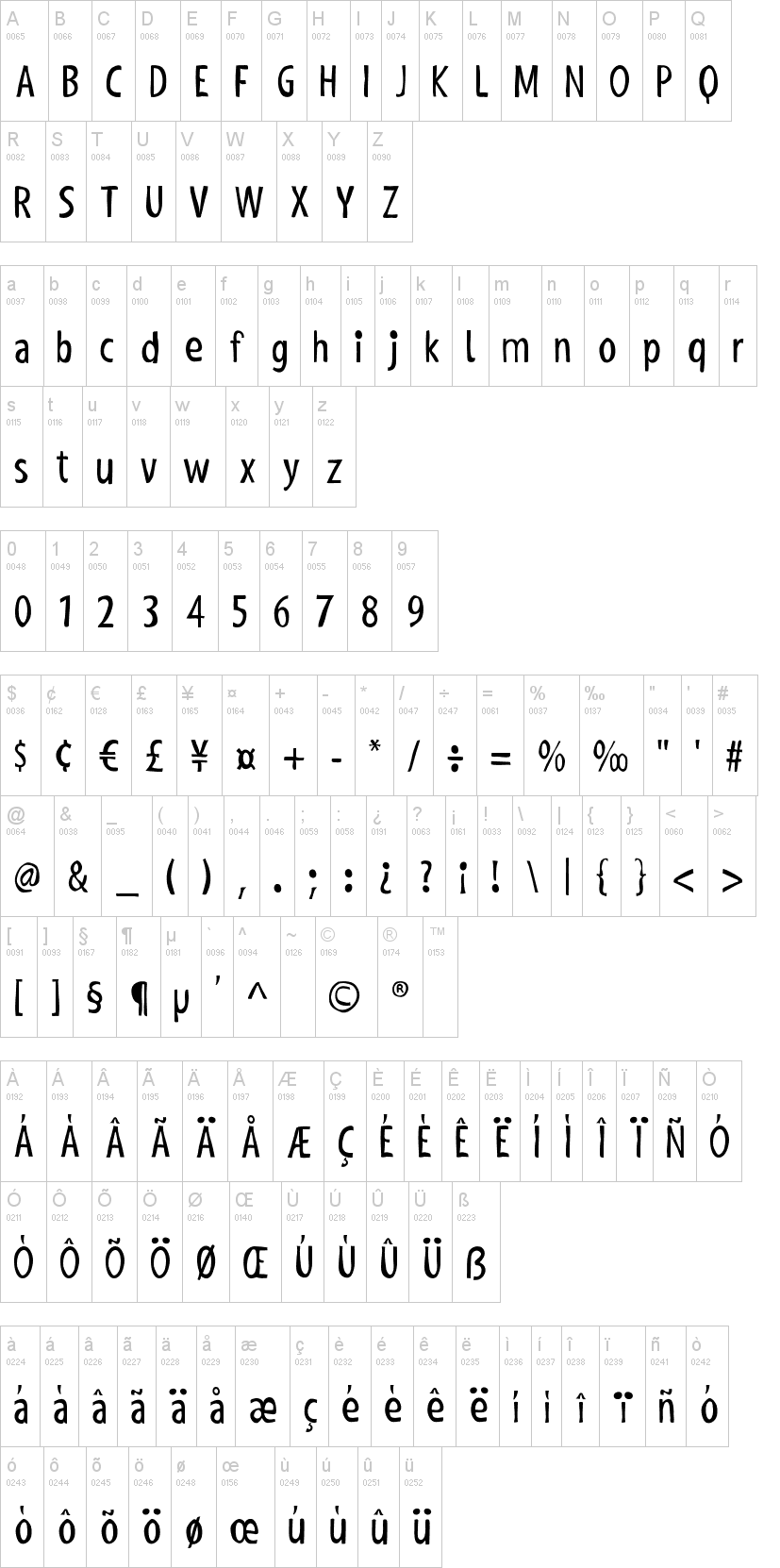
Шрифт Shaky Hand Some Comic
Headline Font / Display Font / Sans Serif Font "Shaky Hand Some Comic"
OpenType Font with 340 glyphs - alternative letters and ligatures (with accents & ) & 3 styles (regular, bold & 3d)